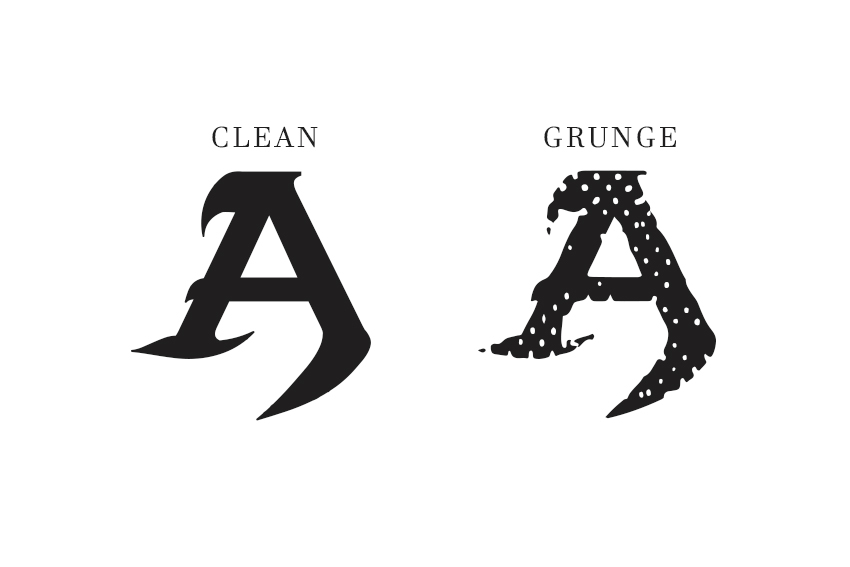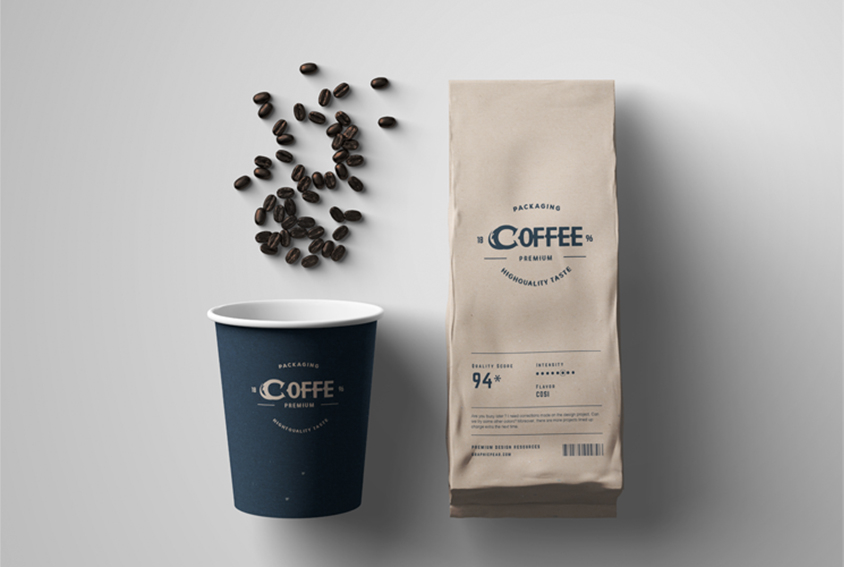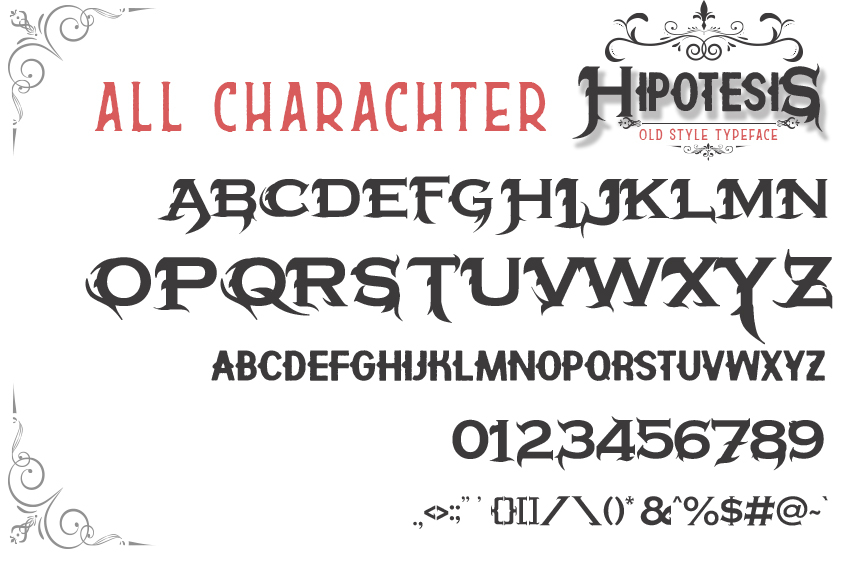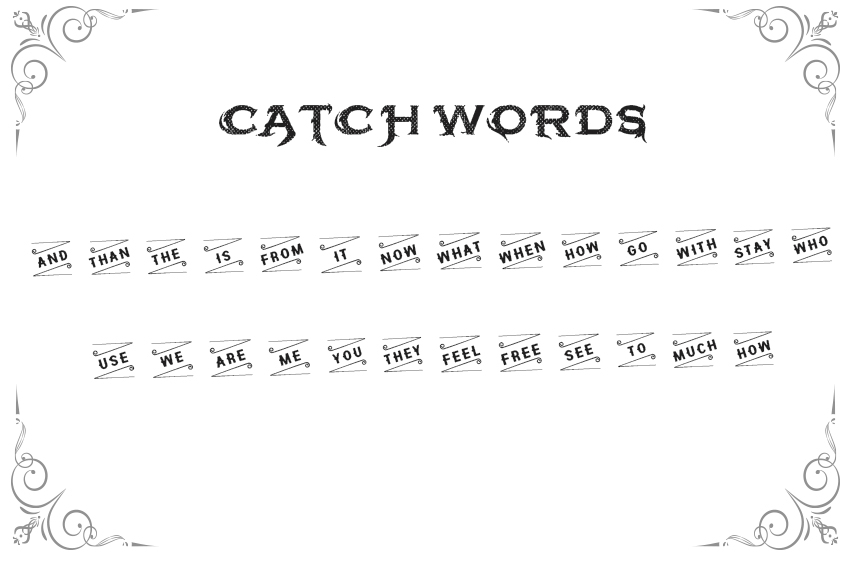
About Hipotesis Font
Inspired by Tattoo letter, Hipotesis is an iconic and fun blackletter font with a vintage feel. It will add a unique retro vibe to any design project.